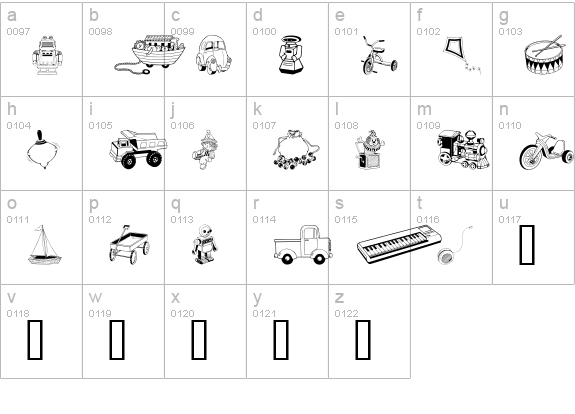
GE Toys Font Details
The GE Toys font is a whimsical and playful typeface that is perfect for adding a touch of fun to your designs. With its rounded edges and cheerful appearance, this font is sure to bring a smile to anyone who sees it. Whether you're creating invitations, greeting cards, or posters, GE Toys will add a delightful touch to your projects. The best part is, GE Toys is completely free to download at FontsMarket.com! Simply visit the website and start using this charming font in your designs today. Let your creativity shine with GE Toys and spread joy with every letter you type.